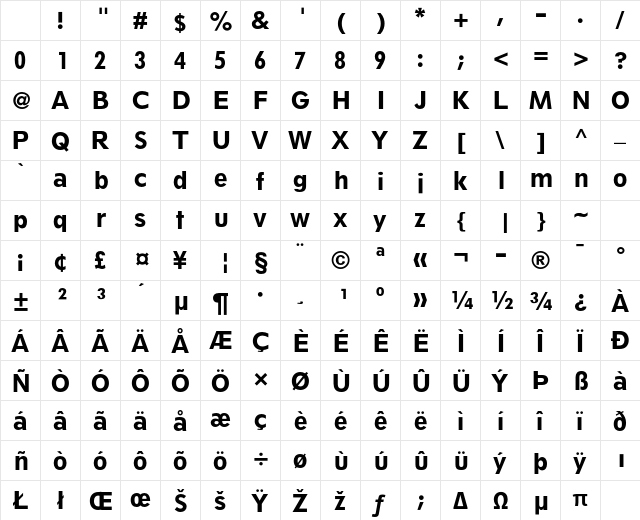
Complete Tw Cen Classified MT Std Bold glyph index. Displaying only characters natively supported by Tw Cen Classified MT Std Bold font.
Tw Cen Classified MT Std is a composed and adaptable typeface that performs quietly and consistently across a wide range of design contexts. Its bold stroke weight gives it real presence on the page.